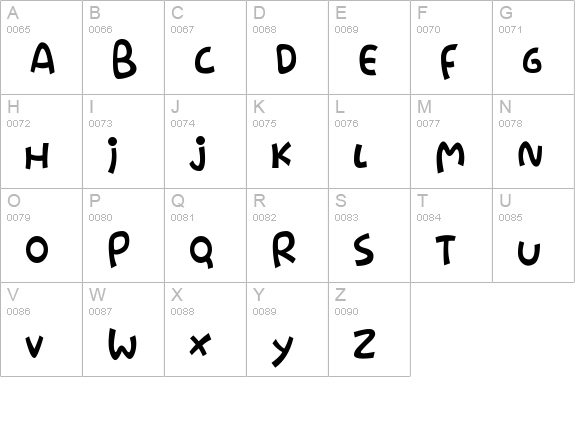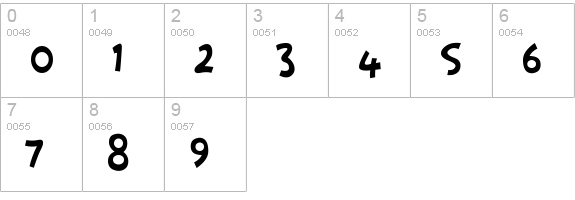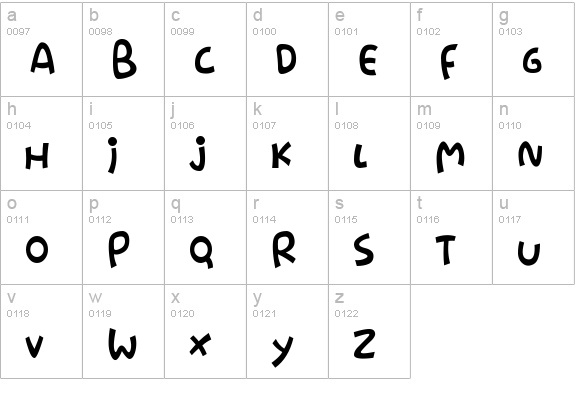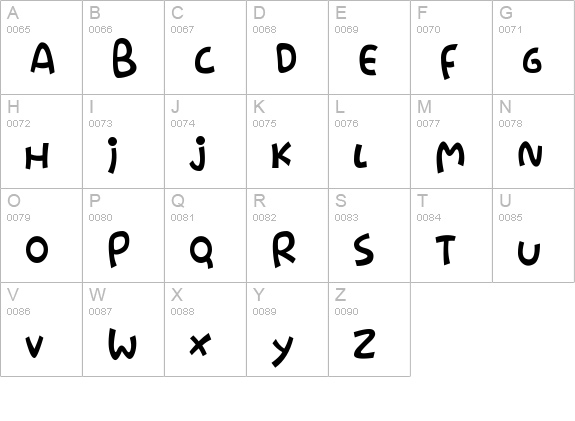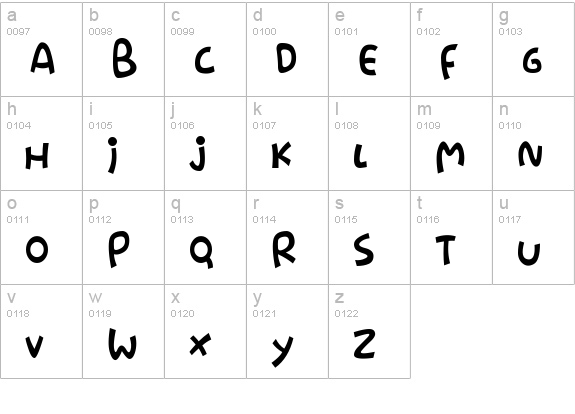
Stringz is a free for personal use font in the Fancy > Comic category, designed by Darrell Flood. It has been downloaded 104 times and is available for Windows, Mac and Linux.
Stringz font is a beautifully crafted typeface that adds a touch of elegance to any design project. Its sleek and modern design makes it perfect for a wide range of applications, from branding to editorial design. With its clean lines and unique character shapes, Stringz font is sure to make your text stand out.